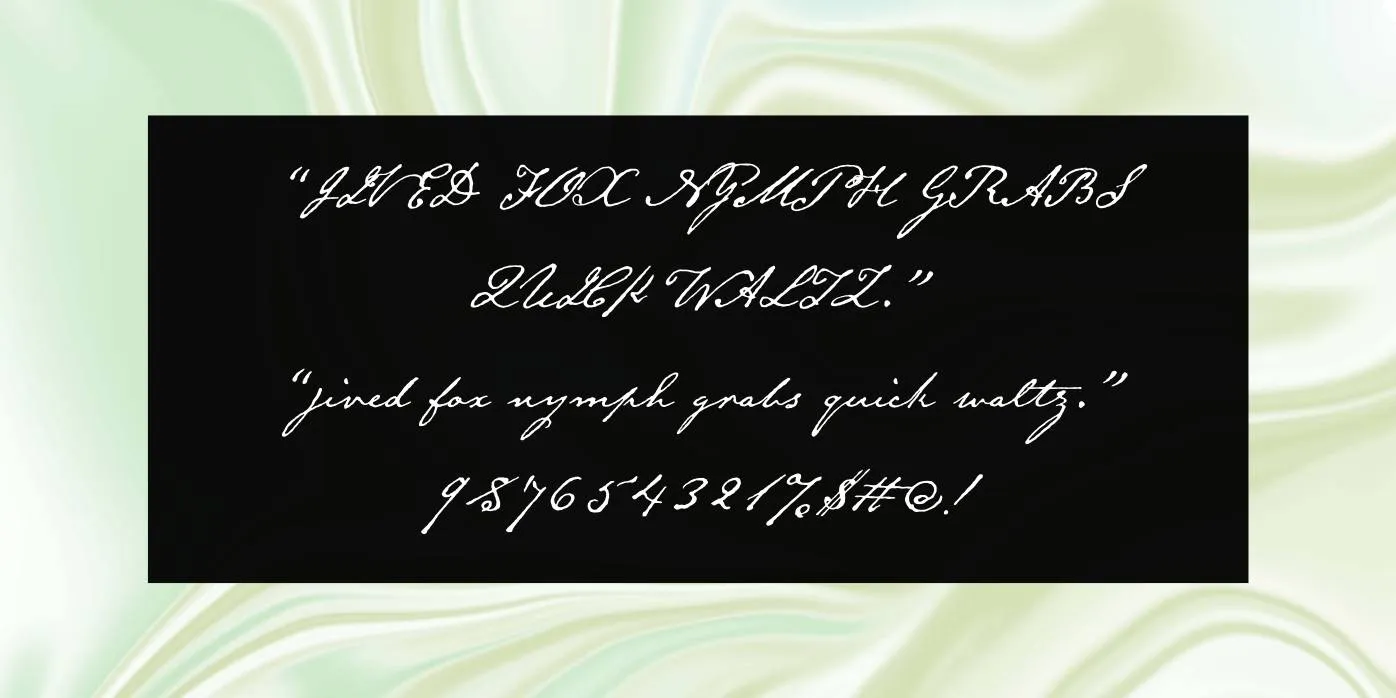
Emily Austin Font
Emily Austin Font is a calligraphy font that was created in the early 1800s. This Font was created by Brian Willson, who was a famous typographer of the time. It is considered to be one of the first fonts to be created specifically for use on computers. This Font was created with the intention of being used on early versions of Microsoft Word.
This font glyph has a very distinct “e” character. The most notable feature of the Font is the flourishes on the letters. These flourishes make the font look very elegant and sophisticated. The Font was designed to be used for formal documents and invitations.